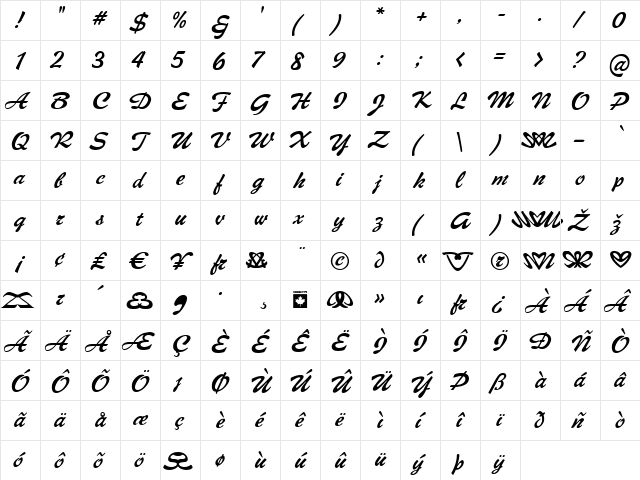
Coffee Script Regular
| Foundry | Canada Type |
Design Context for Coffee Script Typeface
Coffee Script brings a calligraphic fluidity to the page — its connecting strokes and expressive curves give it an unmistakably human quality.